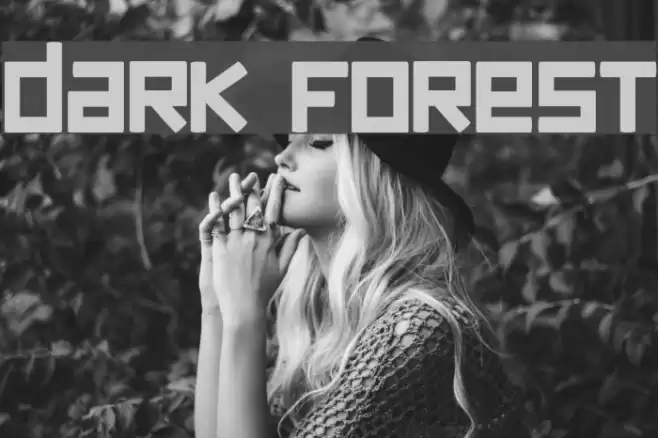
dark forest Font
dark forest Description
This font features a bold, geometric style with a strong, block-like appearance. The characters are uniformly thick, creating a sense of solidity and strength. The uppercase and lowercase letters maintain a consistent height and width, contributing to a cohesive look. The numbers and special characters follow the same design principles, ensuring uniformity across all glyphs. The angular edges and straight lines give it a modern, industrial feel, making it suitable for projects that require a bold statement. The font's design is clean and uncluttered, with no additional flourishes or embellishments, emphasizing clarity and readability.
A bold, geometric font with a modern, industrial aesthetic from Uncategorized fonts.
- Proposed Projects: Ideal for branding, posters, headlines, and any design requiring a strong, impactful typeface.